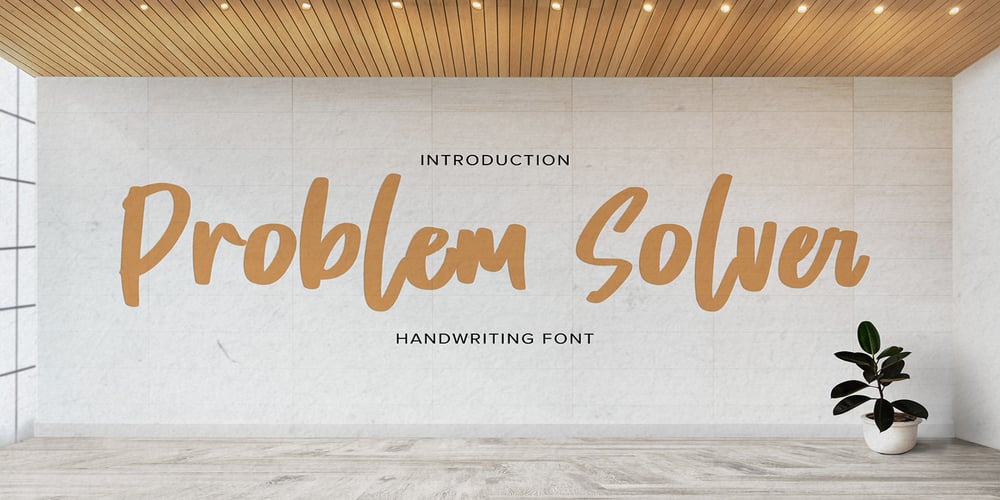
Problem Solver
Problem Solver font
Problem Solver Font Family was designed by Abdul Malik Wisnu, Anang Fibriyanto and published by Gassstype. Problem Solver contains 1 styles and family package options. Problem Solver is a Playful Display Font that will make your designs look modern, unique and fun.It’s perfect for labels, quotes, posters, DIY projects, branding, packaging, greeting cards, websites, photography overlays, signs, window art, scrapbooking, tags and so much more!That is why Problem Solver has a charming, authentic, and relaxed characteristic more natural look to your text with a more natural look to your text. You can activate Ligature OpenType panel to make these two styles. It also has many and underlines that make your text and design more interesting.